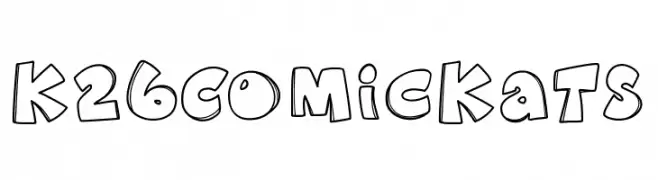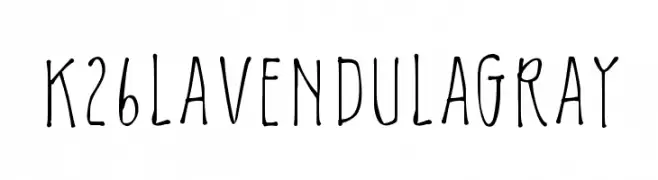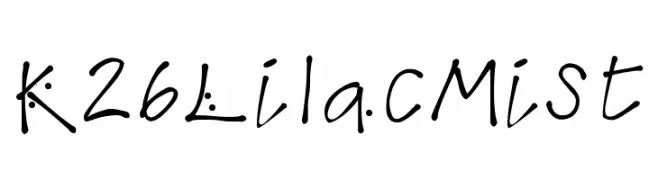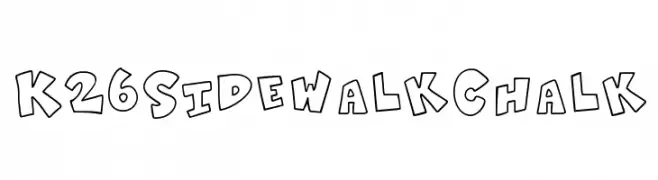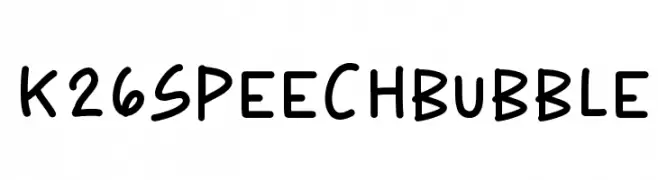
A playful, bold, hand-drawn font with thick, rounded strokes.
A playful, handwritten font with tall, narrow letters and slight stroke variations.
A playful, hand-drawn chalk-style font with bold, irregular letterforms.
A playful, 3D block-style font perfect for children's designs.
A playful, handwritten font with a casual, scribbled style.
A playful, handwritten font with rounded edges and a casual style.
A playful, whimsical handwritten font with irregular strokes and a casual charm.
A playful, bold font with rounded, cartoon-like characters.
A playful, comic-style font with bold, outlined characters and a hand-drawn look.
A bold, playful font with a dotted pattern and rounded characters.